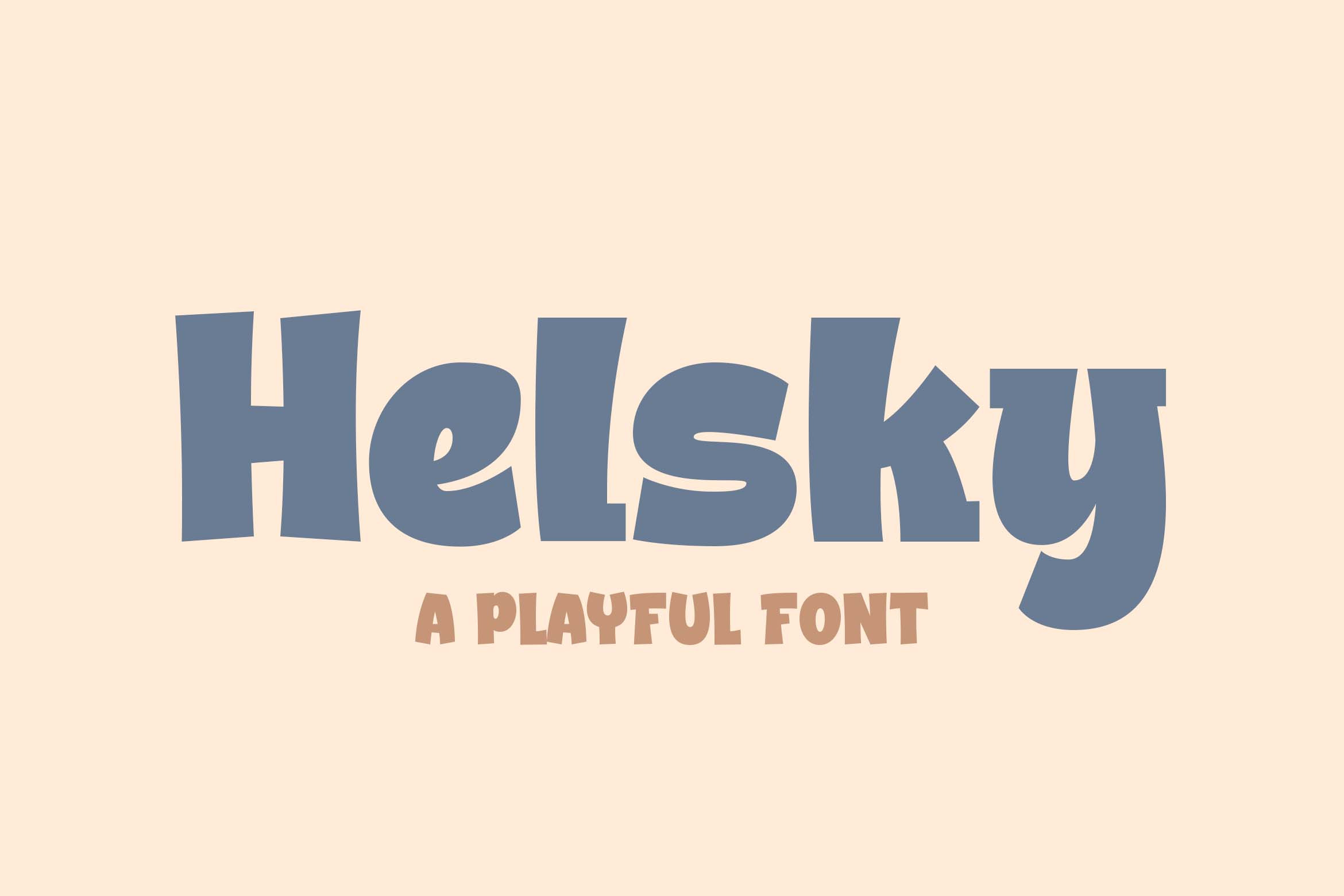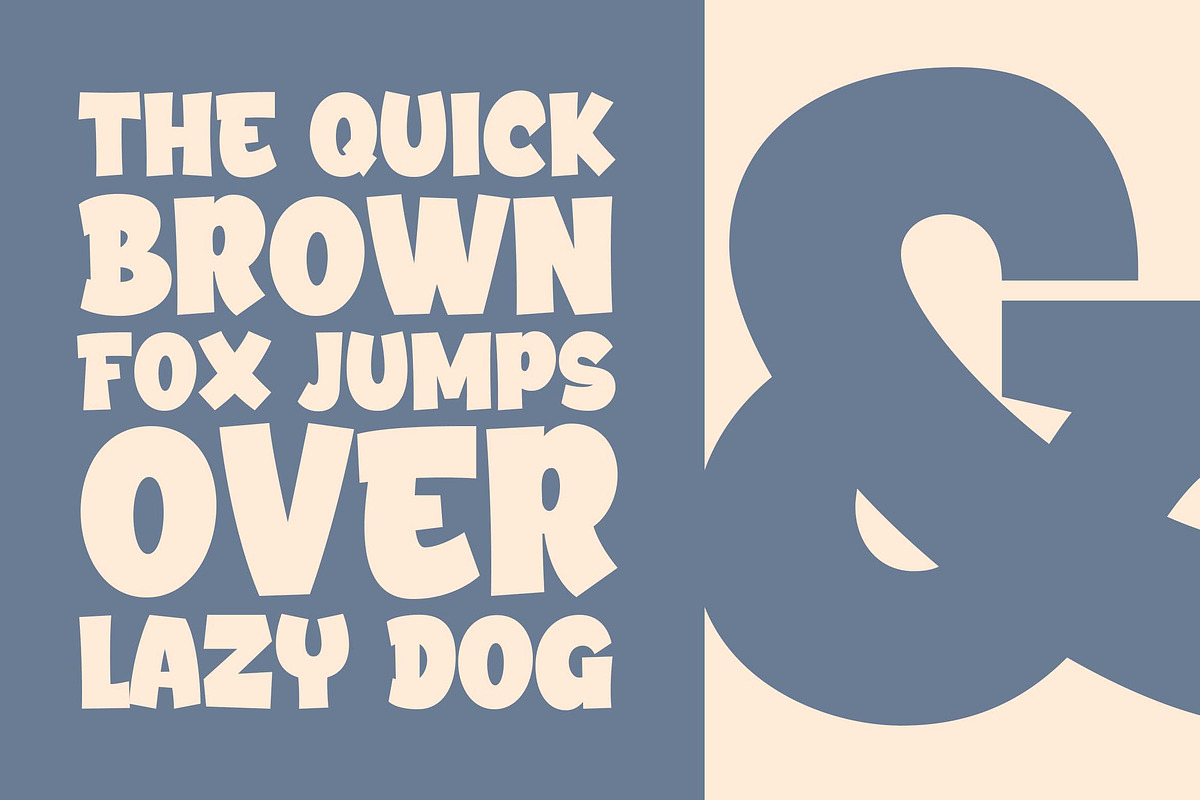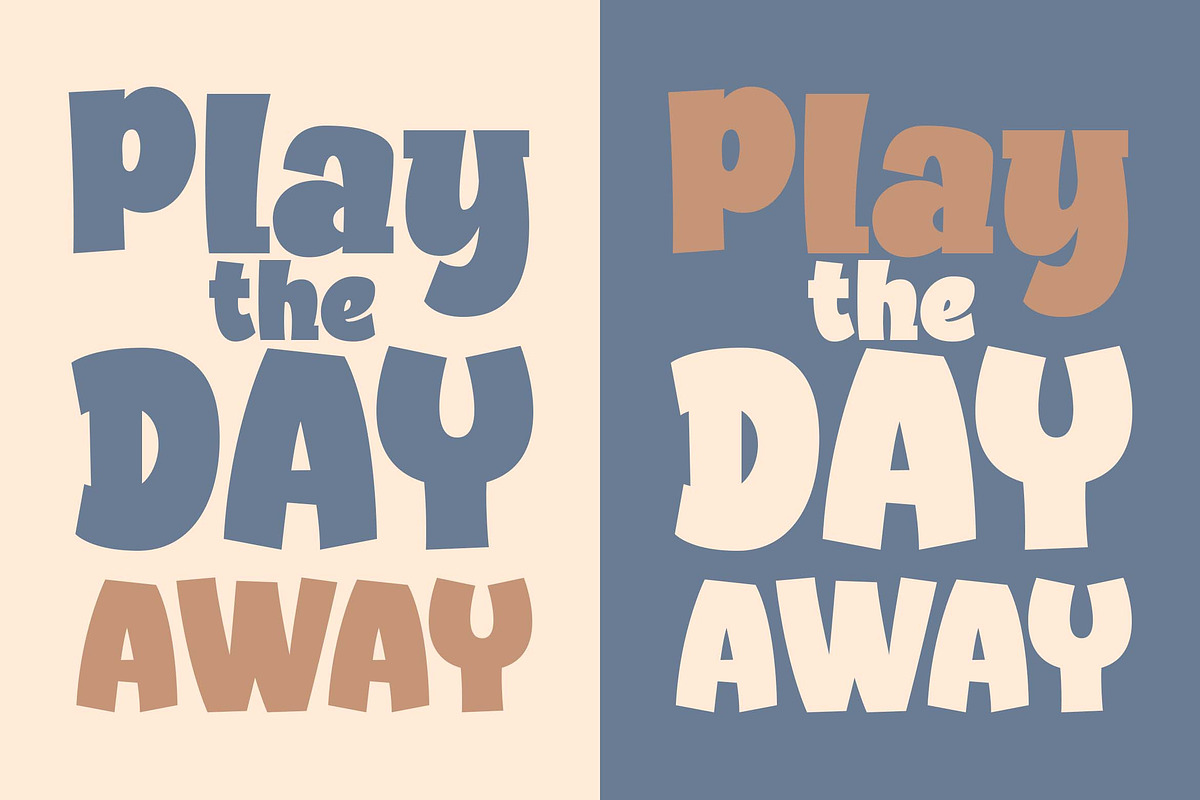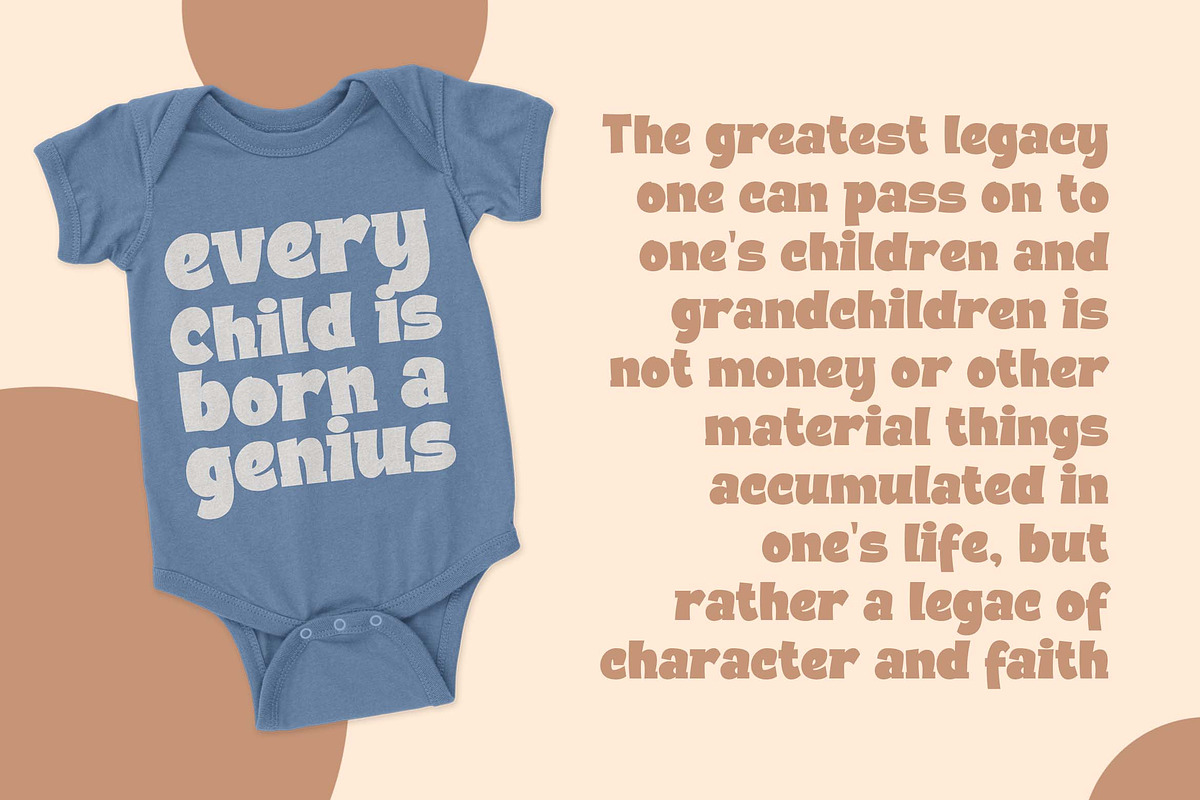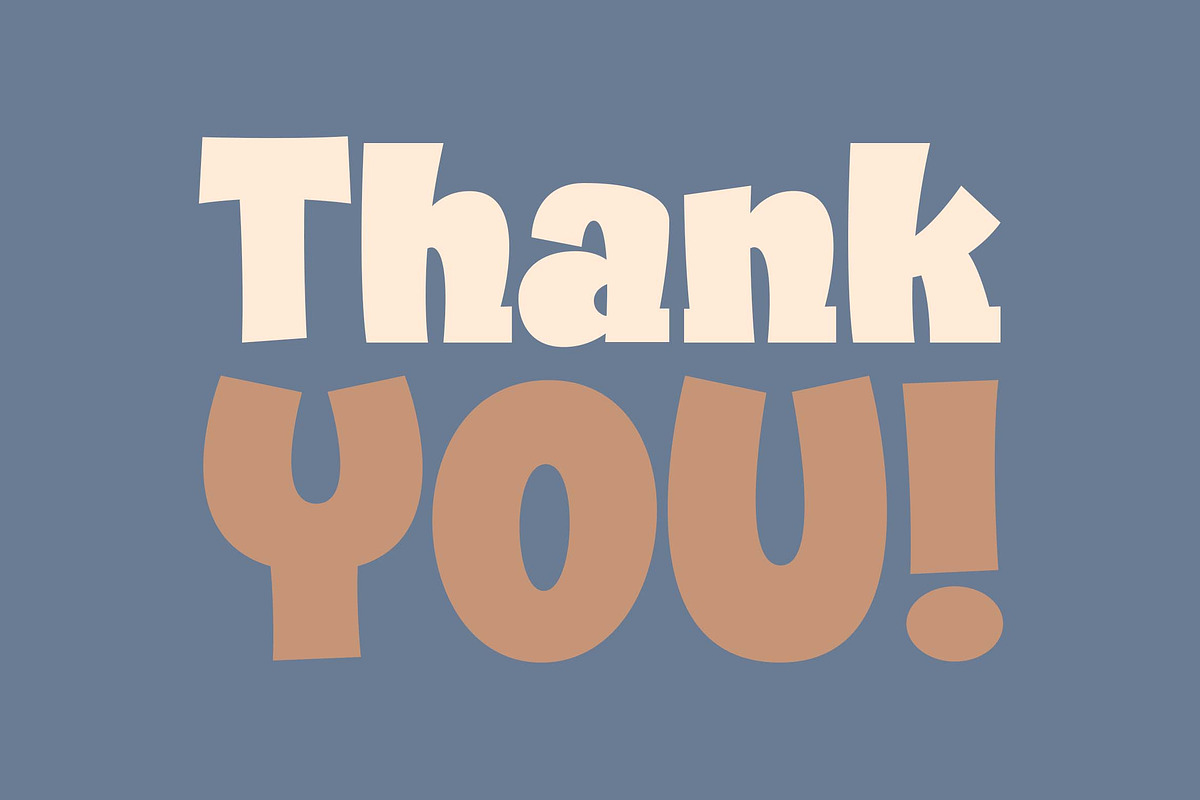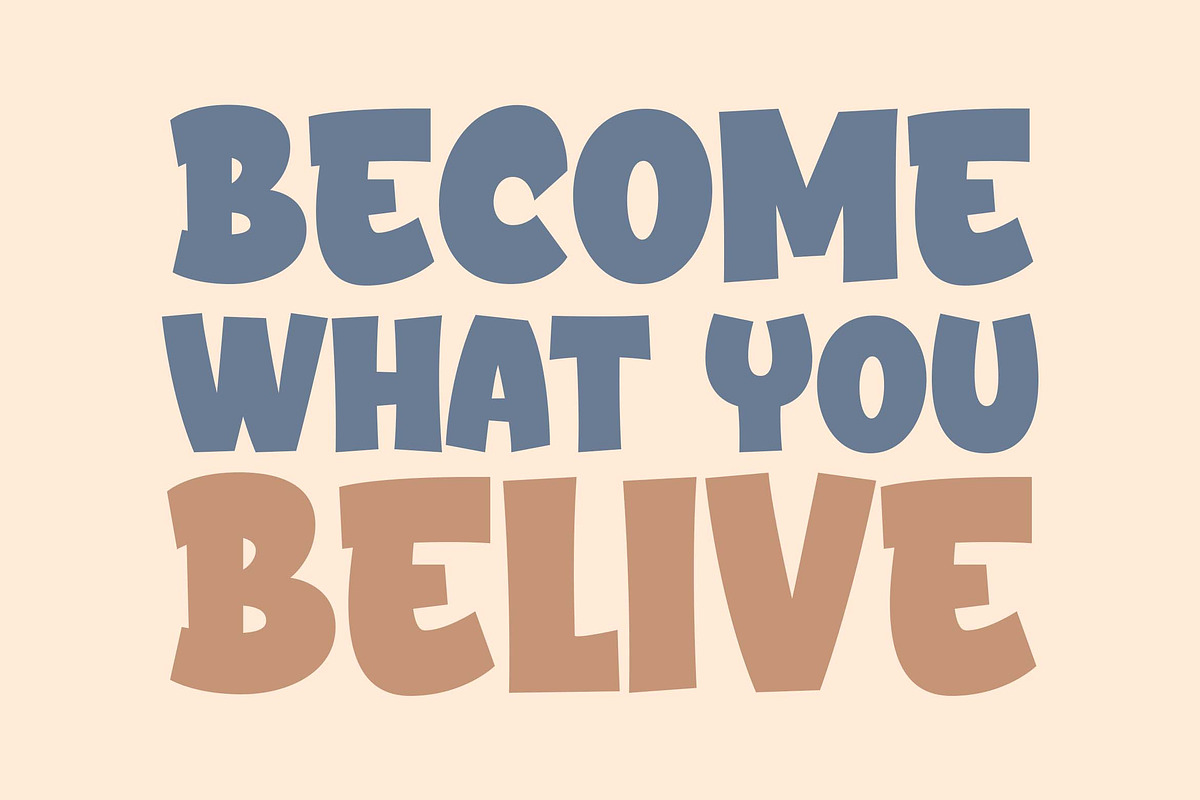
Helsky a Playful Font
Introducing of our new product the name is Helsky a Playful Font, Helsky inspired by Playful style with a fun theme very good for kids theme design.